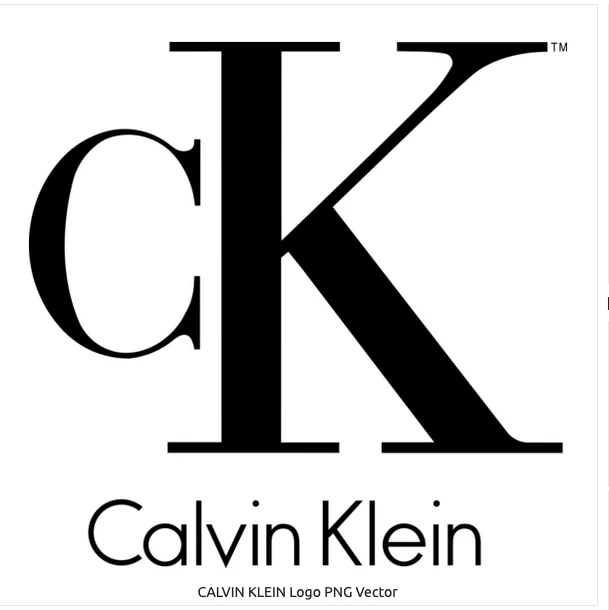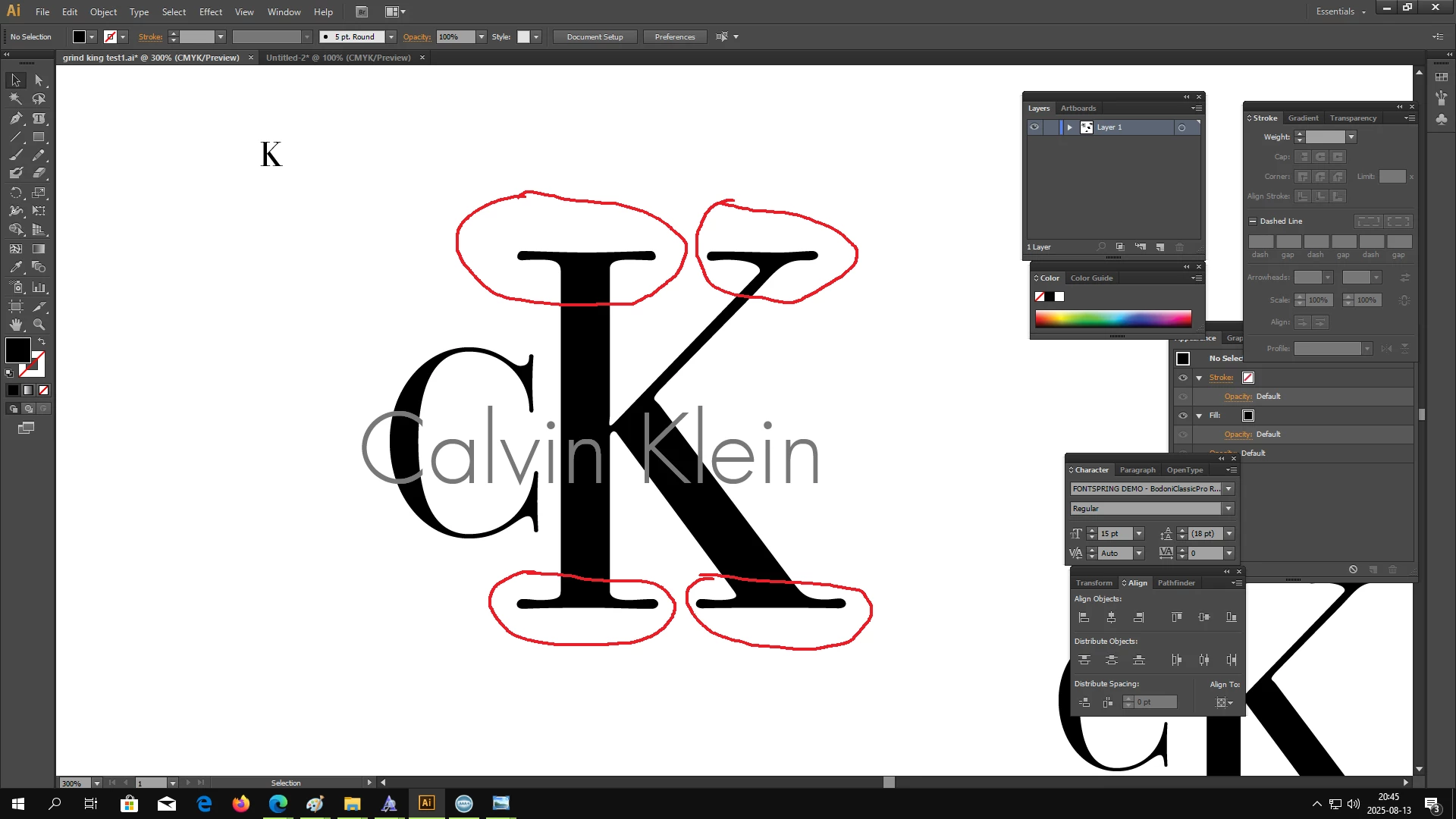
Font is rounded
Im trying to recreate Calvin Klein logo
I got the right font.
But as you can see the corners are all wobbly and not sraitght
why?
How can I fix this?
My quick search for Calvin Klein logo font used also revealed bodoni-classic-pro-a
I suspect that font was a starting point, then outlined then modified.
The biggest give away is the serif brackets which you circled.
I am not a fan of using sites like Seeklogo or Brands of the World to get corporate artwork assets. Very often the logo files that are uploaded are re-creations done by other people. The files aren't authentic.
It's one thing if someone is using a company logo in a personal graphics project. But if the artwork is being used in a paid, commercial project then it's vital to have authentic, current art files as well as color specs and brand use guidelines.
If I'm in a time crunch and need a company's logo immediately I'm more likely to find legit corporate art elements within PDF documents posted on the company's web site. A company like Calvin Klein might just as likely rasterize any logos within company PDFs to prevent people from extracting vector-based elements to re-use.
WHat was your process so far? Did it include any effects? Which font did you use?
I dont understand the first question.
No effects i think
The font is called bodini classic pro a
Did you apply any effects?
Can you select the text object and open Window > Appearance. Then take a screenshot and share that.
But also: that font has very rounded letters. So what you are seeing is by design.